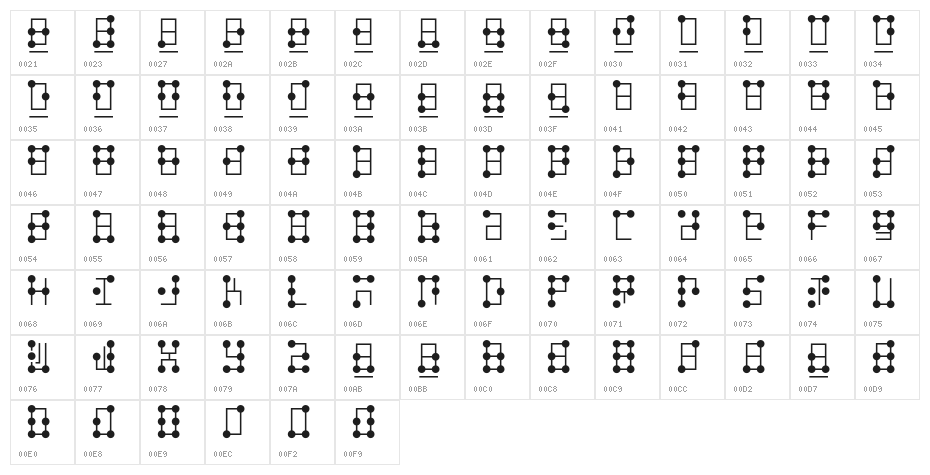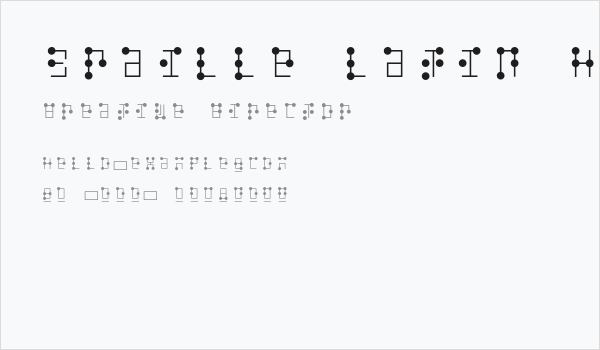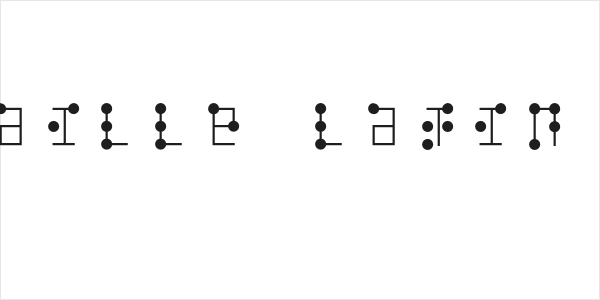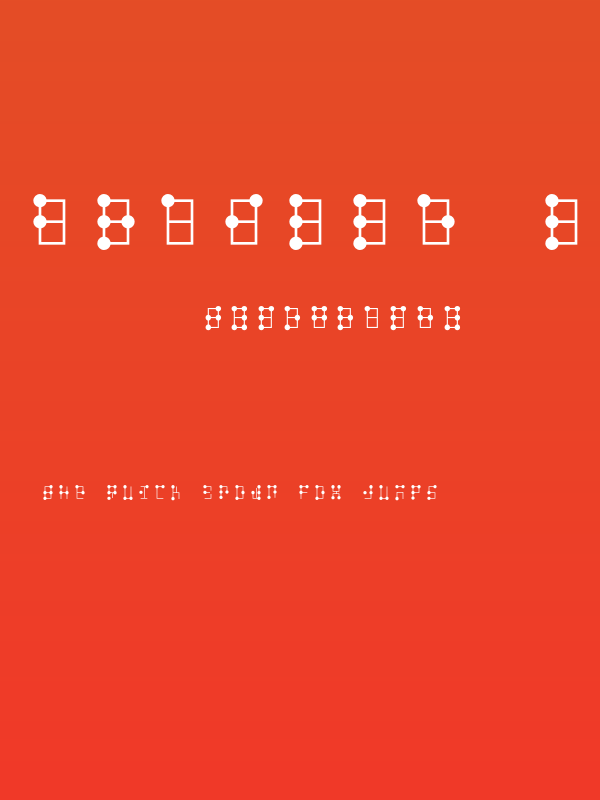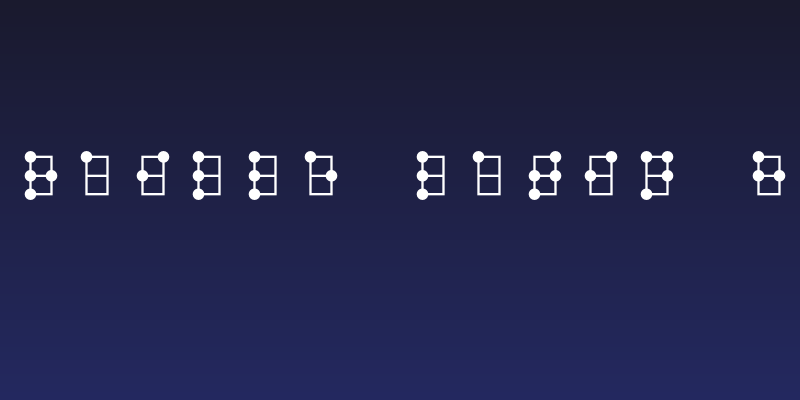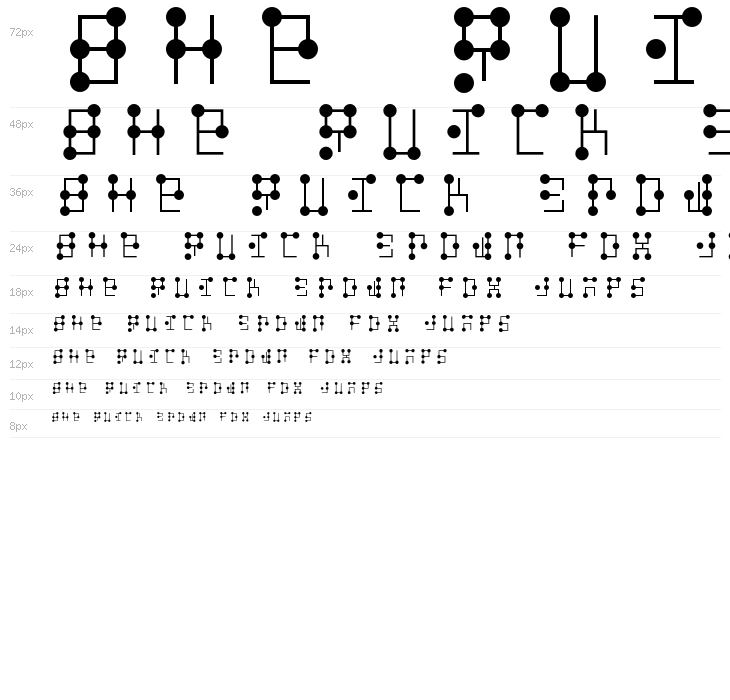
braille latin hc Font
braille latin hc Description
This font is a unique blend of Braille and Latin characters, featuring a modern and innovative design. Each character is represented with a combination of dots and lines, resembling Braille patterns, yet maintaining the recognizable structure of Latin letters and numbers. The design is both functional and artistic, offering a tactile and visual experience. The characters are evenly spaced with a consistent alignment, providing a clean and organized appearance. This font is ideal for projects that aim to bridge the gap between visual and tactile communication, making it accessible and inclusive.
| Use Case | Logos, Educational materials, Accessibility designs |
| Proposed Projects | Ideal for educational materials, accessibility-focused designs, and inclusive branding projects. |